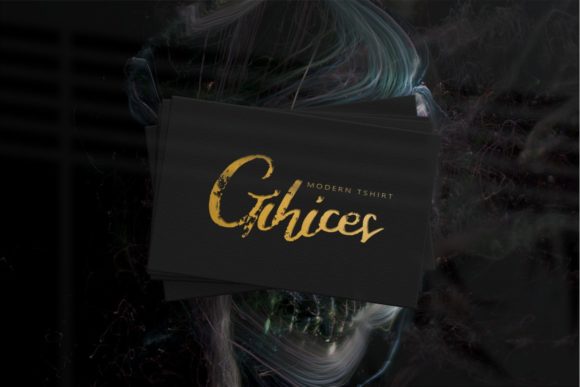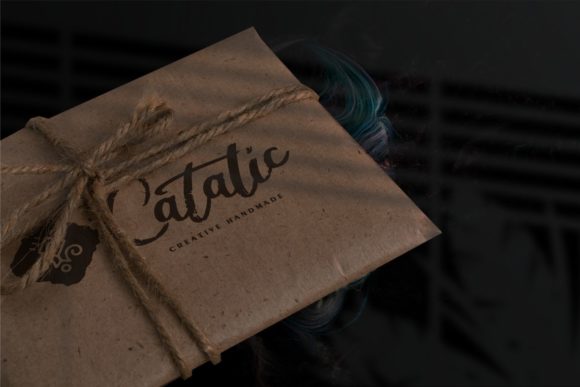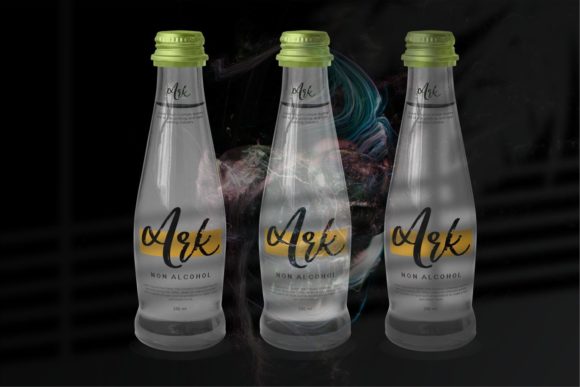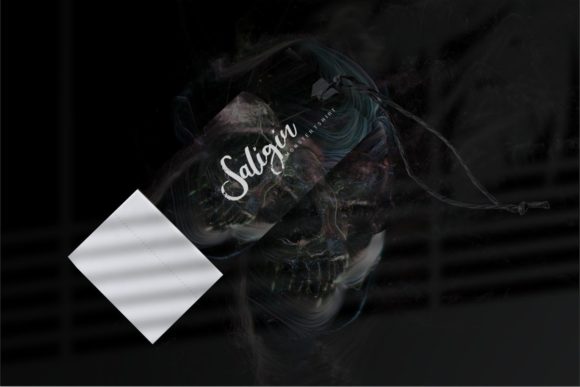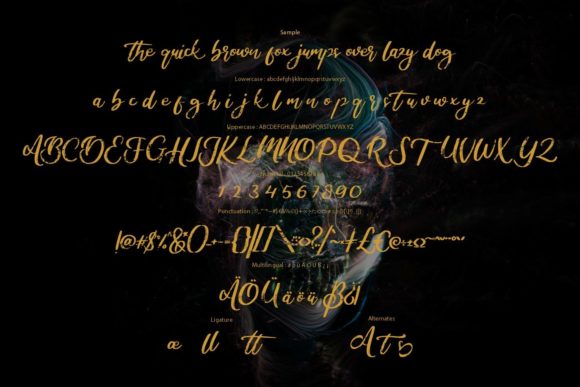
Introducing Antares Font: Elevate Your Designs with Elegance
Are you on the hunt for a font that exudes sophistication and glamour? Look no further than Antares Font, a stunning brushed script font that is sure to take your designs to the next level. With its smooth curves and fluid lines, Antares is the perfect choice for fashion branding, editorial designs, and any project that demands a touch of elegance.
The Characteristics of Antares Font
Antares Font is a ravishing, brushed script font that boasts a unique and captivating aesthetic. Its smooth curves and fluid lines give it a sense of movement and fluidity, making it perfect for designs that require a sense of dynamism and energy. The font’s elegant and refined appearance makes it an excellent choice for high-end fashion brands, editorial designs, and luxury products.
Perfect for Fashion Branding
Fashion brands require fonts that are stylish, sophisticated, and attention-grabbing. Antares Font ticks all these boxes and more. Its elegant and refined appearance makes it perfect for use in logos, headlines, and body copy. Whether you’re designing a brand identity for a fashion label, creating a stylish brochure, or crafting a compelling advertisement, Antares Font is the perfect choice.
Ideal for Editorial Designs
Editorial designs require fonts that are not only stylish but also highly legible. Antares Font meets these requirements with ease. Its smooth curves and fluid lines make it easy to read, even in smaller sizes. Whether you’re designing a magazine, creating a stylish blog, or crafting a compelling article, Antares Font is the perfect choice.
Why Choose Antares Font?
So why choose Antares Font over other fonts? Here are just a few reasons:
• Elegant and Refined Appearance: Antares Font boasts an elegant and refined appearance that is sure to elevate your designs.
• Smooth Curves and Fluid Lines: The font’s smooth curves and fluid lines give it a sense of movement and fluidity.
• Highly Legible: Antares Font is highly legible, even in smaller sizes.
• Perfect for Fashion Branding and Editorial Designs: The font is perfect for fashion branding and editorial designs.
Tips for Using Antares Font
Here are a few tips for using Antares Font in your designs:
• Use it as a Headline Font: Antares Font is perfect for use as a headline font, where its elegant and refined appearance can really shine.
• Pair it with a Sans-Serif Font: Pair Antares Font with a sans-serif font for body copy to create a stylish and sophisticated design.
• Experiment with Different Colors: Antares Font looks great in a variety of colors, so don’t be afraid to experiment and find the perfect hue for your design.
In conclusion, Antares Font is a stunning brushed script font that is sure to elevate your designs. With its smooth curves and fluid lines, it’s perfect for fashion branding, editorial designs, and any project that demands a touch of elegance. So why wait? Add Antares Font to your projects today and see the difference for yourself.